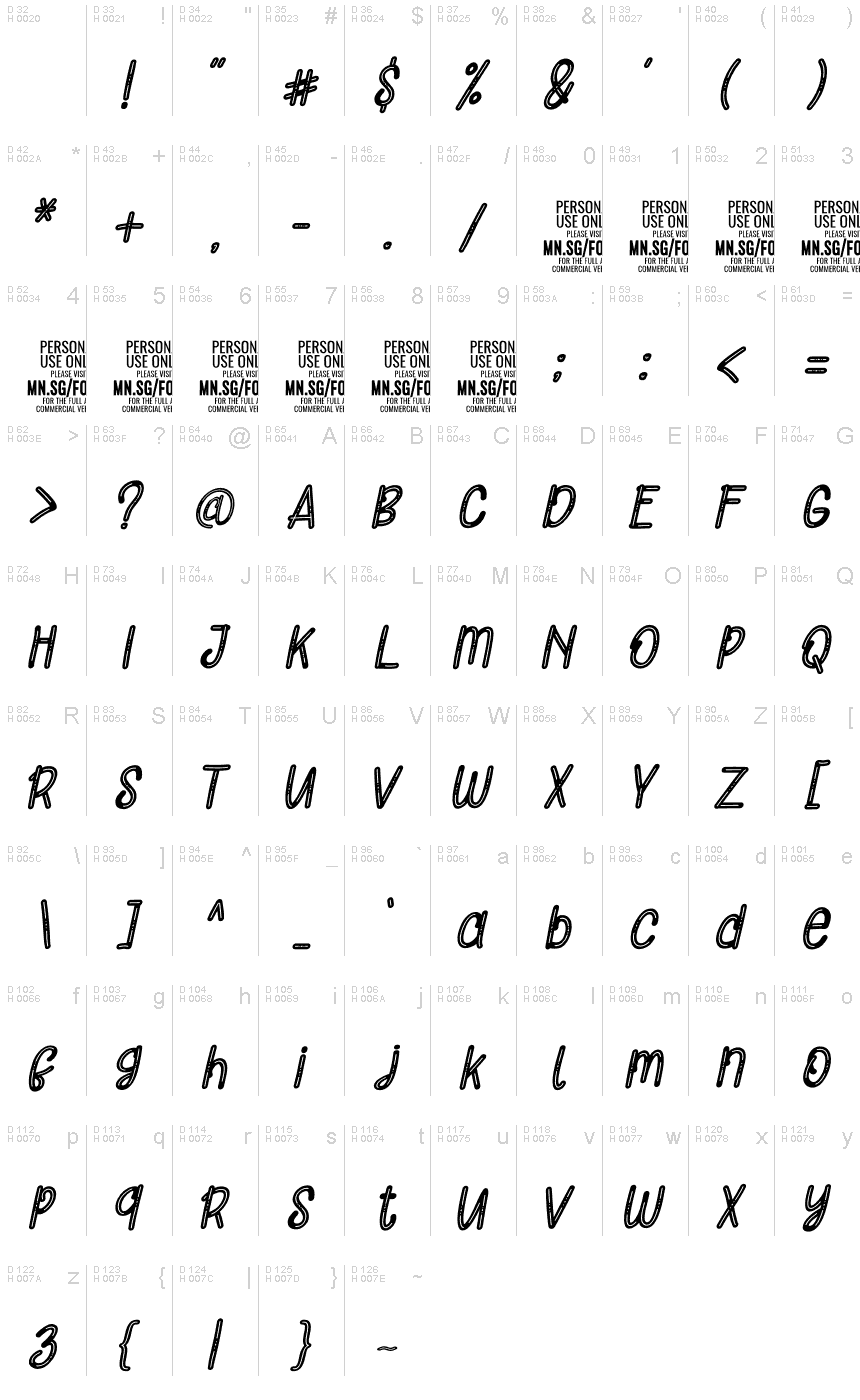
Striped Cats Italic PERSONAL Italic
Introducing Striped Cats Italic font - an attractive display typeface by Mans Greback. The light weight, cartoon-style font is perfect for creating eye-catching designs, posters, logos and branding projects. Let Striped Cats Italic help your project stand out!